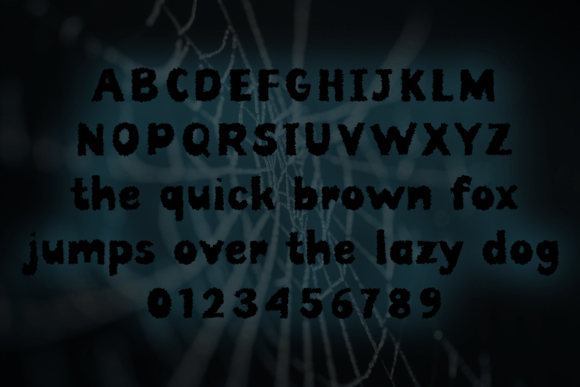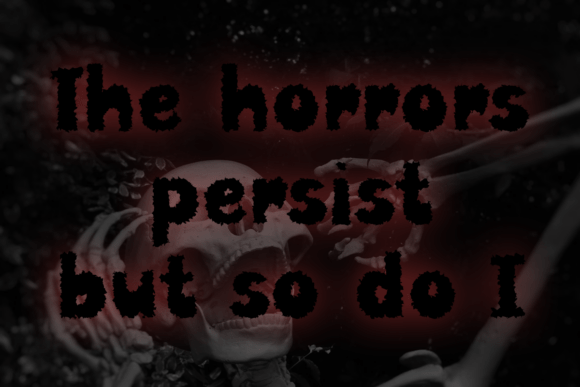
Introducing Creepy Fall: The Ultimate Font for Spooky yet Festive Designs
Are you looking for a font that captures the essence of Halloween without being too intense? Look no further than Creepy Fall, a textured display font designed to add a touch of spookiness to your designs while still keeping things fun and festive. In this article, we’ll dive into the features and benefits of Creepy Fall, and explore its various use cases for designers and crafters.
A Font that Sends Chills Down Your Spine
Creepy Fall is a unique font that mimics the look of creepy shadows creeping through the fog. Its jagged, irregular edges and blotchy, ink-like texture give it a bold, mysterious presence that’s perfect for Halloween designs. The font’s soft roundness and textured finish combine to create a cartoon-horror vibe that’s ideal for children’s Halloween materials, seasonal school flyers, or themed DIY crafts.
Key Features of Creepy Fall
- Textured display font: Creepy Fall has a unique, textured finish that gives it a bold, eye-catching presence.
- Jagged, irregular edges: The font’s jagged edges add to its spooky, eerie feel.
- Blotchy, ink-like texture: The font’s texture mimics the look of creepy shadows creeping through the fog.
- Soft roundness: The font’s soft roundness gives it a playful, cartoon-like feel.
- Readable on digital screens and in print: Creepy Fall reads well on both digital screens and in print, making it versatile for various design applications.
Use Cases for Creepy Fall
Creepy Fall is a versatile font that can be used for a variety of design projects, including:
- Halloween greeting cards: Add a touch of spookiness to your Halloween greeting cards with Creepy Fall.
- Classroom or school event posters: Create eye-catching posters for Halloween events and activities with Creepy Fall.
- Trick-or-treat bags and labels: Make your trick-or-treat bags and labels stand out with Creepy Fall.
- Social media graphics: Add a bold, mysterious presence to your Halloween social media graphics with Creepy Fall.
- Haunted corn maze posters: Create spooky posters for haunted corn mazes and other Halloween attractions.
- Trick-or-treat printables: Create printable trick-or-treat tags, invitations, and other materials with Creepy Fall.
- Eerie social media content: Add a touch of spookiness to your social media content with Creepy Fall.
Tips for Using Creepy Fall
Here are some tips for getting the most out of Creepy Fall:
- Use against dark or glowing backgrounds: Creepy Fall looks great against dark or glowing backgrounds, such as jack-o’-lanterns and misty autumn settings.
- Experiment with different colors: Try out different colors to see what works best with Creepy Fall. Dark colors like black, purple, and orange work well, but you can also experiment with brighter colors for a more playful look.
- Pair with other fonts: Creepy Fall can be paired with other fonts to create a unique and eye-catching design. Try pairing it with a sans-serif font for a bold, modern look.
Creepy Fall is a unique and versatile font that’s perfect for Halloween designs. Its bold, mysterious presence and cartoon-horror vibe make it ideal for a variety of design projects, from Halloween greeting cards to social media graphics. With its textured finish and jagged edges, Creepy Fall is sure to add a touch of spookiness to your designs while still keeping things fun and festive.